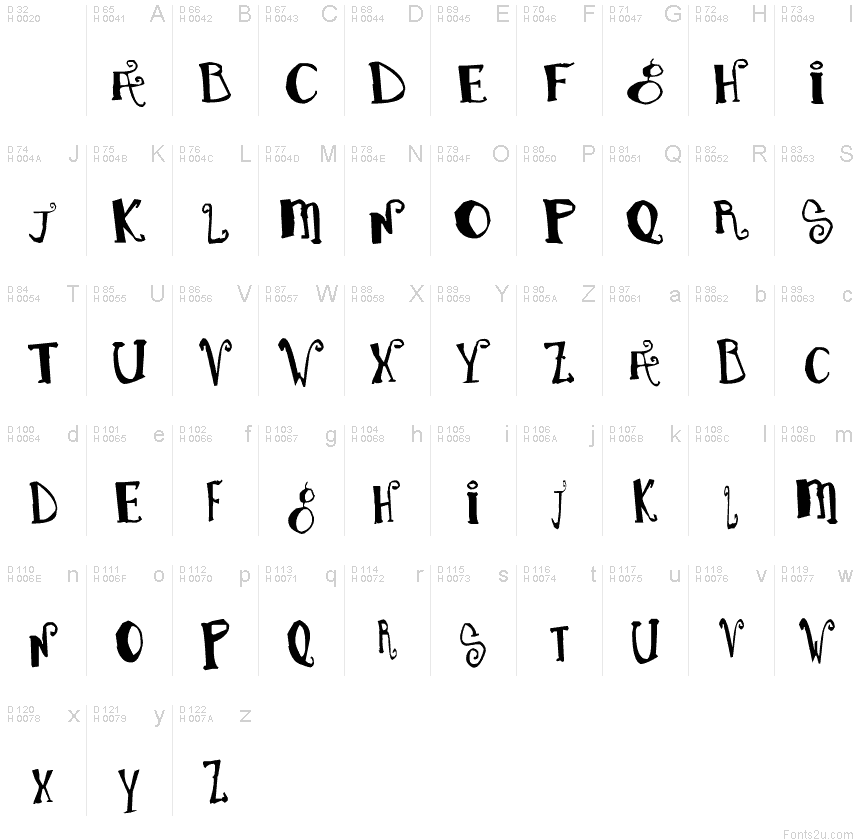
Mountain High
Mountain High is a free distorted horror display font with a rough, hand-cut silhouette. Its uneven stroke widths, pinched curves, and abrupt angular ends make the letters look crooked and slightly menacing.
As a theatrical title, it can turn horror posters and game graphics into part of the spectacle. The shapes also suit novelty packaging, band merchandise, and festival signage. Those recurring chopped edges give each application a distinctly handmade, unruly quality that more conventional display lettering could not supply.